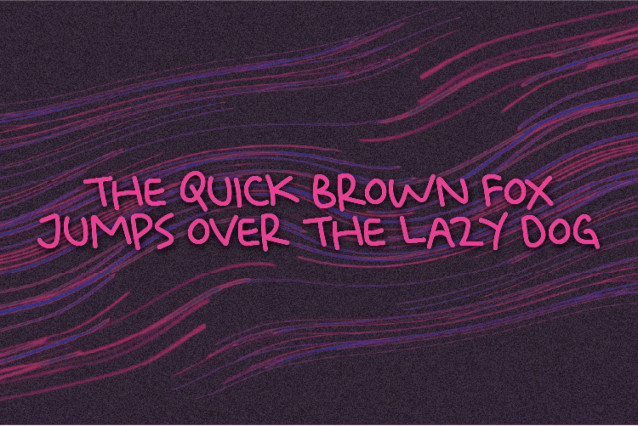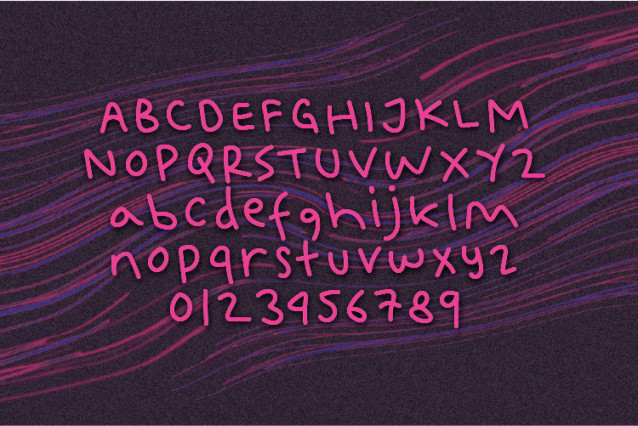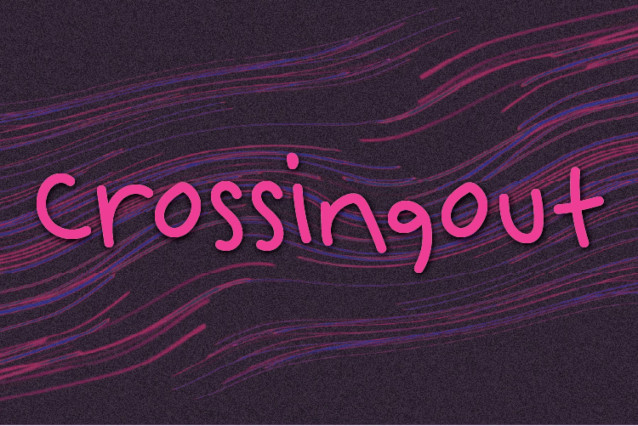
Crossingout HS Font
Crossingout is a fun and casual handwritten font. Whatever the topic, this font will be a wonderful asset to your font library, as it has the potential to enhance any creation.